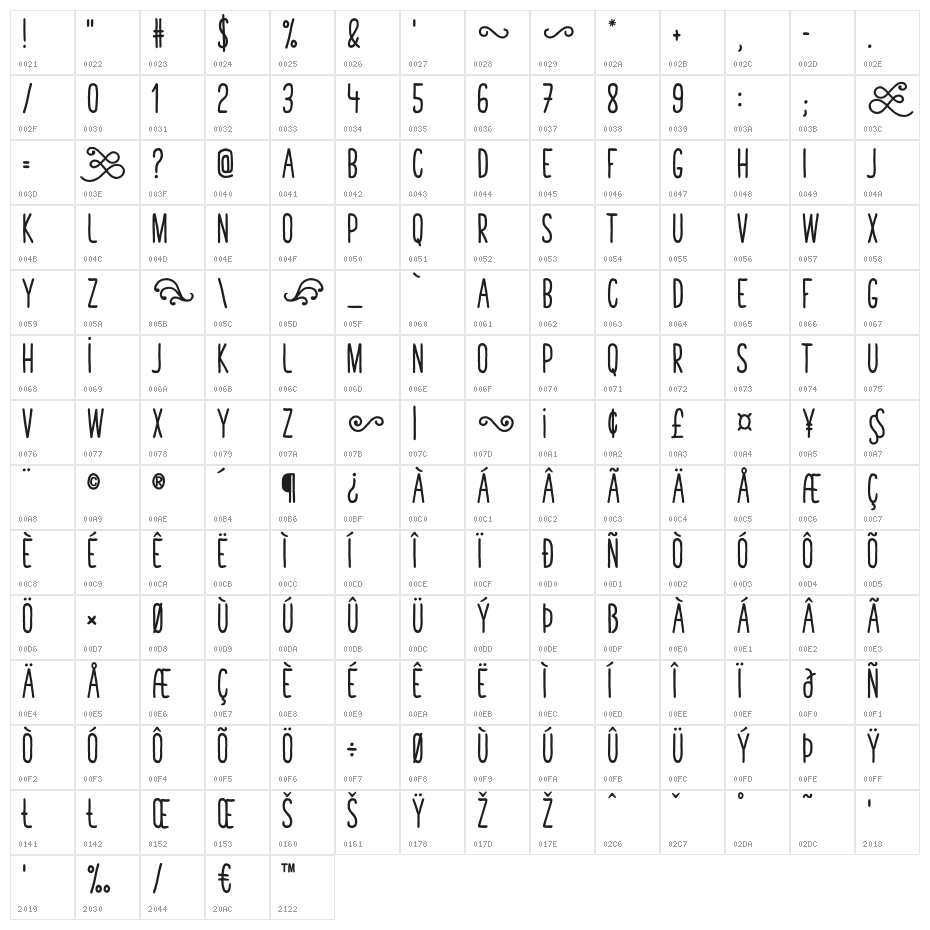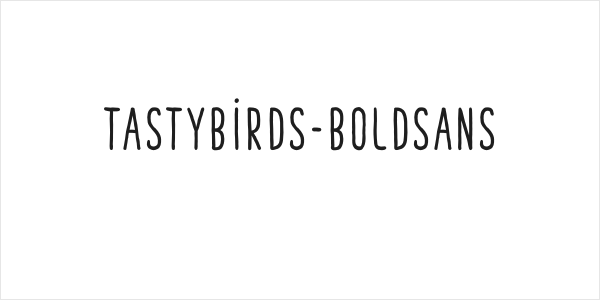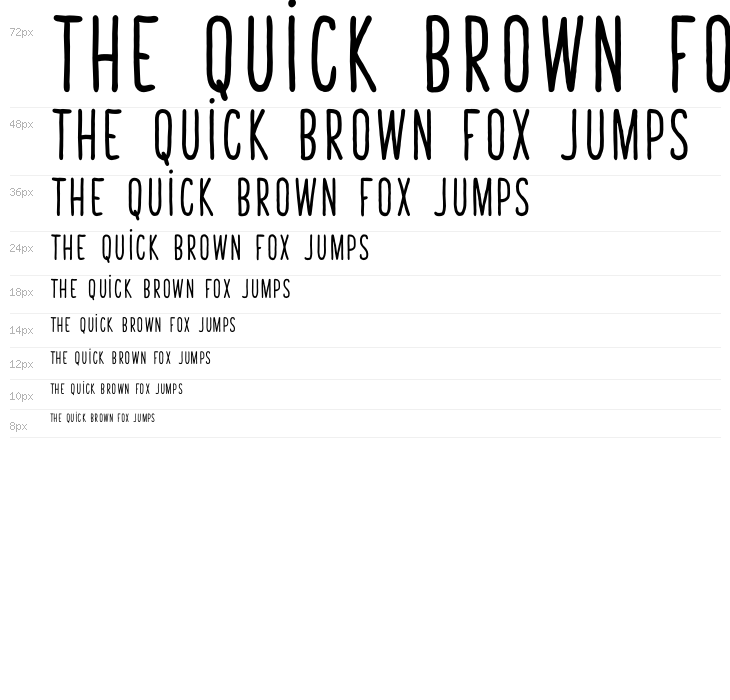
TastyBirds-BoldSans Font
TastyBirds-BoldSans Description
This font features a bold, hand-drawn style with a playful and casual appearance. The letters are tall and slightly narrow, with rounded edges that give them a friendly and approachable feel. The strokes are consistent in thickness, contributing to a cohesive look across all characters. The uppercase and lowercase letters maintain a uniform height, enhancing readability. The numerals are clear and distinct, matching the overall style of the alphabet. Special characters are creatively designed, adding a whimsical touch to the font. This font is perfect for projects that require a personal and informal touch, such as invitations, posters, and branding materials.
| Proposed Projects | Ideal for invitations, posters, branding, and any project needing a personal touch. |